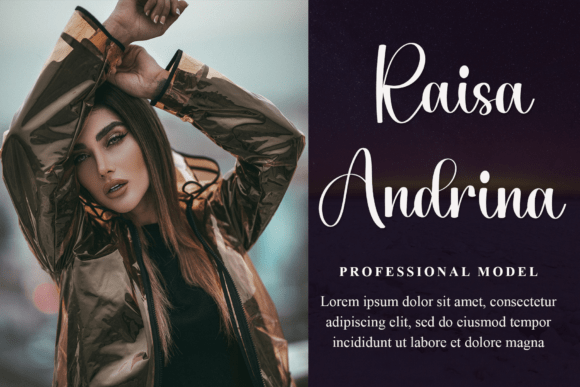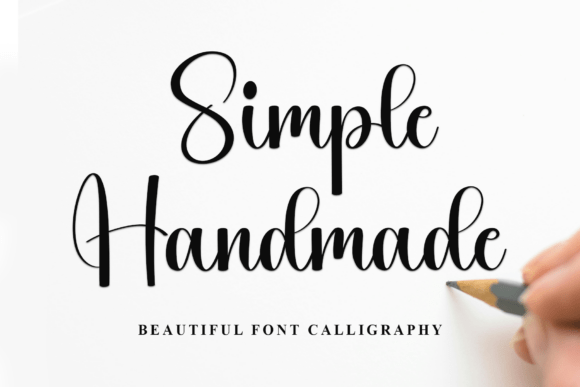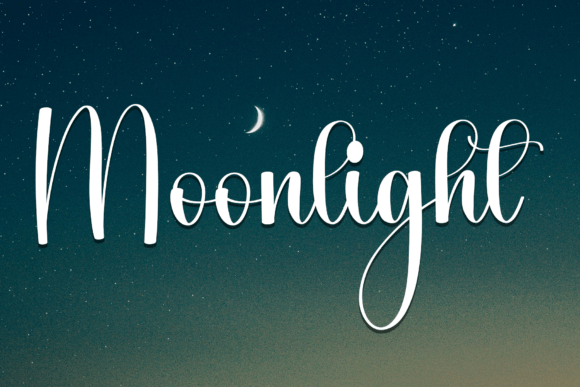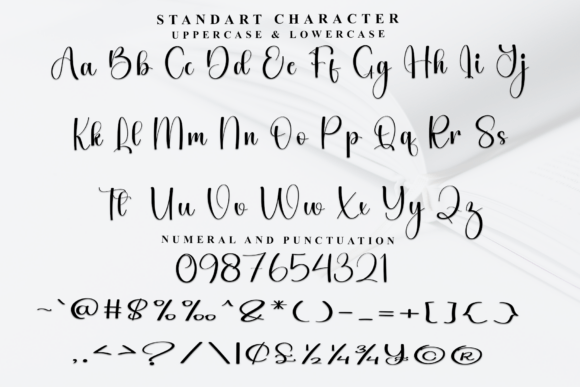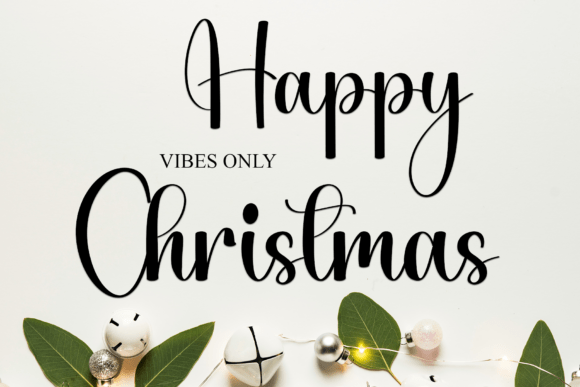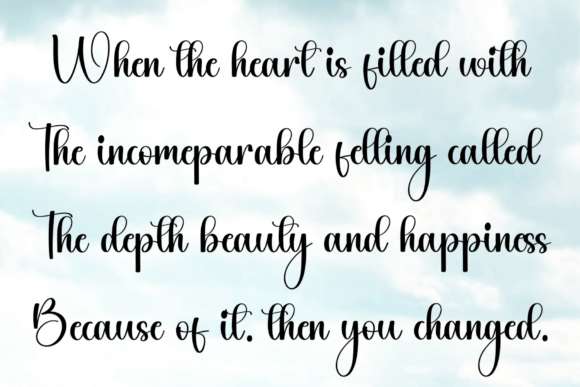
The Magical World of Bubble Font: Elevate Your Designs with a Unique Touch
Have you ever been in the middle of a design project, and suddenly, you’re stuck on finding the perfect font? I recall a particularly frustrating experience while working on a craft project for a client who wanted a font that was both whimsical and elegant. After hours of searching, I stumbled upon the Bubble Font, and it completely transformed my design. In this article, we’ll dive into the world of Bubble Font, exploring its features, uses, and what makes it a fantastic addition to any creative project.
A Personal Review: What I Love About Bubble Font
So, what makes Bubble Font so special? Here are a few things that I absolutely love:
- ✨ Unique and eye-catching design: The soft, distinctive strokes of Bubble Font give it a special character that sets it apart from other fonts.
- ✅ Versatility: With various characters and a natural font style, Bubble Font is perfect for a wide range of design projects, from crafts to digital art.
While Bubble Font is an amazing addition to any design project, there are a few minor quirks to be aware of:
- 🤔 Limited use in formal designs: Due to its whimsical nature, Bubble Font might not be the best choice for formal or professional designs.
- ⚠️ Glyph limitations: Some users have reported that the font might not have as many glyphs as they would like, which could limit its use in certain projects.
The creator of Bubble Font was inspired by the delicate beauty of butterflies and the softness of natural elements. With a passion for typography and design, the designer aimed to craft a font that was both unique and elegant. Through a combination of traditional and digital techniques, Bubble Font was born – a font that’s both versatile and eye-catching.
| What is Bubble Font? | Bubble Font is a unique and eye-catching font designed with a soft, distinctive touch. |
In conclusion, Bubble Font is a fantastic addition to any design project, offering a unique and eye-catching touch that’s sure to elevate your creations. Whether you’re a designer, crafter, or creative hobbyist, this font is perfect for a wide range of projects. So, go ahead and explore the world of Bubble Font – your designs will thank you!